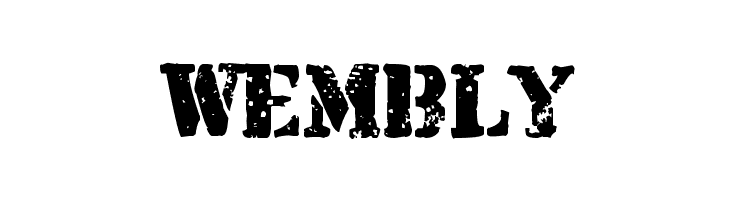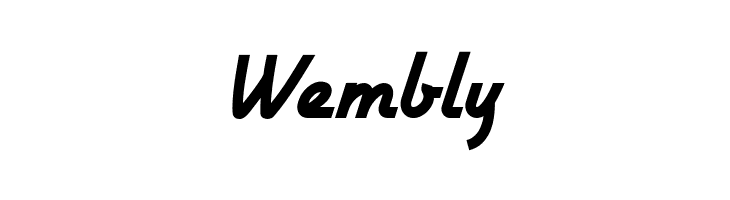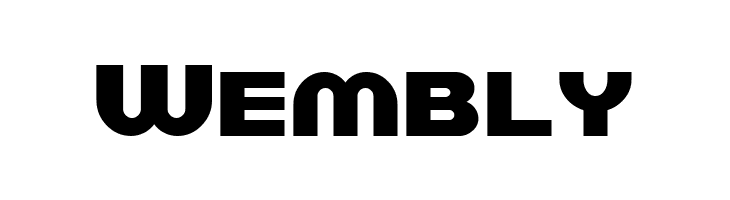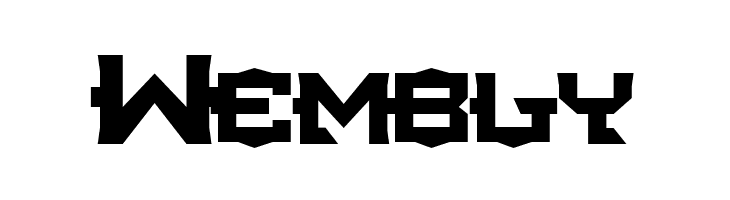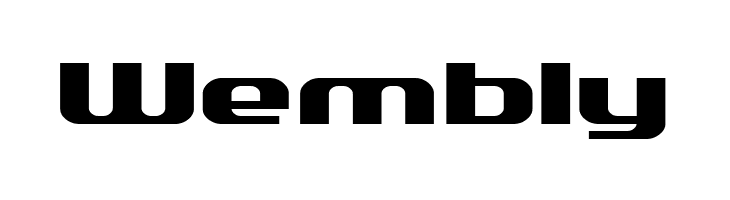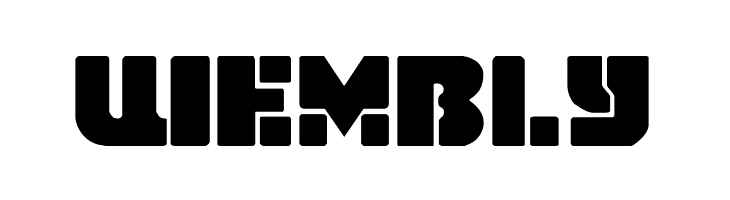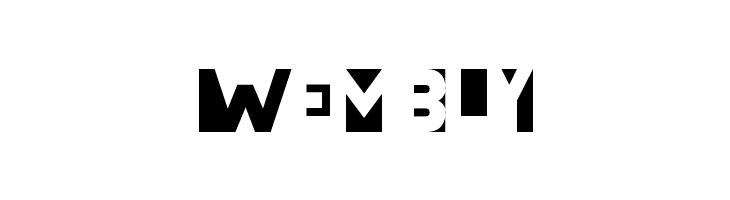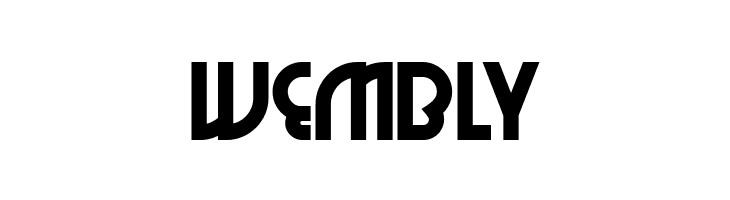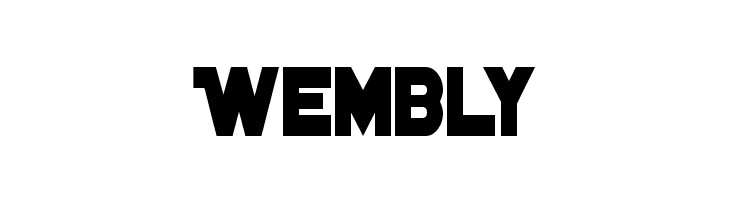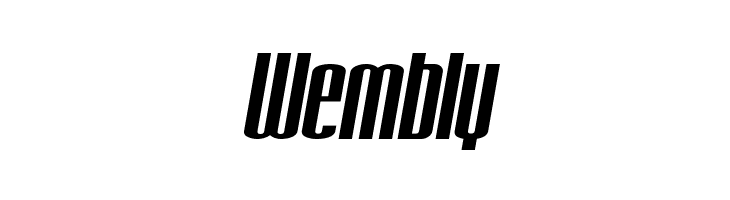
A bold, distressed font with a rugged, weathered appearance.
A bold, dynamic script font with slanted, italicized characters and strong visual impact.
A bold, condensed font with high contrast and tight spacing, ideal for impactful designs.
A bold, extended font with a modern, futuristic style.
A bold, geometric font with modern, block-like characters and unique cut-out sections.
A bold, geometric font with Art Deco influences, ideal for striking designs.
A bold, extended, and oblique font with a modern and dynamic style.
A bold, futuristic font with geometric shapes and sharp angles, perfect for sci-fi themes.
A bold, futuristic font with geometric shapes and sharp angles.
A bold, futuristic font with a geometric and angular design.
A bold, geometric font with thick, block-like characters ideal for modern designs.
A bold, geometric sans-serif font with a modern and professional appearance.
A bold, compressed font with a geometric and robust design.
A bold, block-like font with a vintage athletic feel.
A bold, outlined, and playful font with a handwritten style.
A bold, playful font with a comic book style and outlined characters.
A bold, geometric font with a vintage yet modern appeal, ideal for impactful headlines.
A bold, geometric font with an architectural influence, perfect for impactful designs.